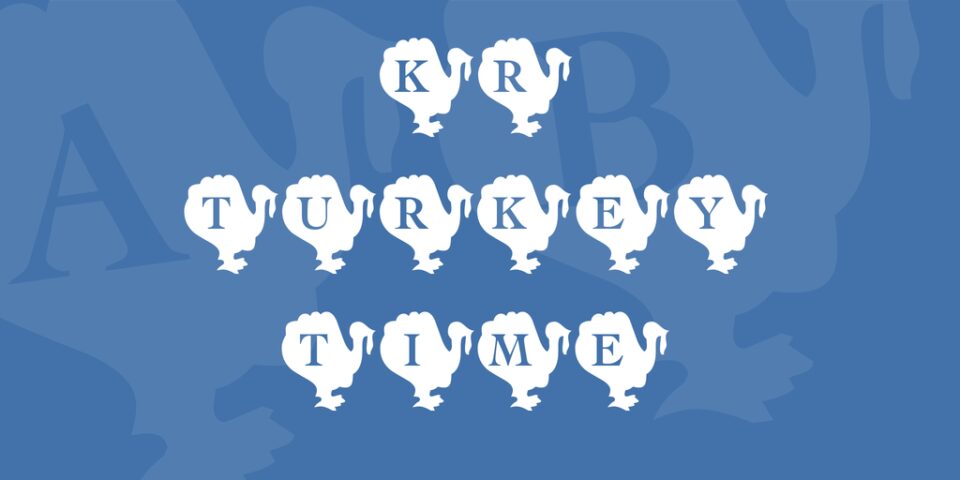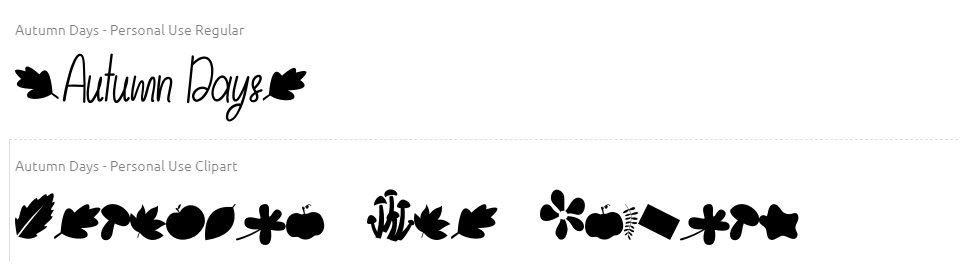
8 Best Thanksgiving Fonts For You to Gobble Up
Whenever the holiday season approaches, so do reasons to put together themed documents and promotional materials. Whether it’s a turkey-themed handout to tell your workplace when the office party is going to be or a specialized evite to the family dinner, there’s a good chance you’re not going with a brutalist design that reminds them of a ransom note or Craigslist ad. You want to spice up the visuals just like you’re going to spice up your pumpkin pie. We can’t blame you. We do the same thing! Which is why we’ve gone out and found not only the most elegant and heartwarming Thanksgiving fonts out there, but also some of the quirkiest and most fun. So — again like Thanksgiving dinner — let’s dig in.
1. Turkey Time
turkey time
When you’re looking for a Thanksgiving font that leaves absolutely no room for doubt about what your design is for, you need to download KR Turkey Time. The glyphs in this font aren’t made for manuscripts or long-form documents, but when you need to make something stand out and get noticed, you can’t go wrong here. Your audience is sure to gobble these turkeys right up. (Sorry, we couldn’t resist.)
2. Autumn Breeze
thanksgiving font
When your Thanksgiving documents need a little style and class, Autumn Breeze is one of the top choices. As a script-style font, it automatically looks more put-together than a gimmick font. Not only does it look personal and create the familial atmosphere that the holiday thrives on, but it is also legible enough that you can include it in professional documents for the season.
3. Autumn Days
autumn days
Autumn Days takes what works about the first two fonts above and combines them into one, delightful set of glyphs. You have a comfortable, handwriting font and also a set of clipart and icon glyphs that you can use to decorate and enhance any designs that you put together. If you’re not familiar with clip-art glyphs in fonts, they work incredibly well as decorative additions to designs because they’re essentially vectors that can be scaled to any size without losing fidelity. You won’t have any need for image editing or adding extra steps to finalizing your design. So Autumn Days is incredibly versatile and worth a look.
4. Buttercream
thanksgiving font
Not only is buttercream one of the best elements of Thanksgiving dinner, it’s now also one of the best elements of your invitations and flyers, too. Whether you’re making special letters to each of your family members to tell them how much they mean to you or simply a handout at the office to tell who is bringing what to the potluck, FB Buttercream won’t look out of place. Good for headers or body text, this Thanksgiving font is one of the more versatile options out there.
5. Puritan Party Hats
puritan party hats
When you think about Thanksgiving in America, one non-turkey image surely comes to mind. Pilgrim hats. That’s why the Puritan Party Hats font is so perfect. After all, the Puritans were known for throwing the best parties. Okay…well, maybe not…but this font sure will liven up any room. Not only is it a perfectly readable font, but it’s just quirky enough to evoke the holiday spirit on any document, design, or website you use it on. While you won’t be writing any full emails or holiday-themed short stories with these hats, you absolutely will grab your audience’s attention and let them know immediately that they’re in for some kind of holiday treat. And isn’t that the hole reason to use a Thanksgiving font in the first place?
6. Pea Ellie Belly
thanksgiving font
Perhaps the font with the most fun name to say, Pea Ellie Bellie is a delightful font that can make any document look homey and cozy with very little work. Just look at the glyphs above and tell us that you wouldn’t immediately think that anything printed with it was meant just for you with as much love as possible. You would. That’s why we think that your Thanksgiving font search could end right here if you are going for the downhome, rustic kind of Thanksgiving. Your guests will know immediately that they’re being welcomed with open arms.
7. Autumn Harvest Dings
harvest dings
Everyone loves Wingdings. So when it comes to picking a Thanksgiving font, Autumn Harvest Dings are a no-brainer. As we mentioned above, icon fonts are amazing for document decoration because the images are scalable within any document editor that lets you adjust font size. They can be inserted quickly and easily, and manipulated by anyone with no formal image or design training. (After all, who doesn’t know how to change from 12pt font to 112?). This particular set of glyphs covers the gamut of Thanksgiving standards, from the overflowing cornucopia, buckets of corn, sunflowers, and raking the leaves into piles for the children to jump into after they fill themselves. If you have a Thanksgiving design that needs a little (or a lot!) extra flair, these dings will do it.